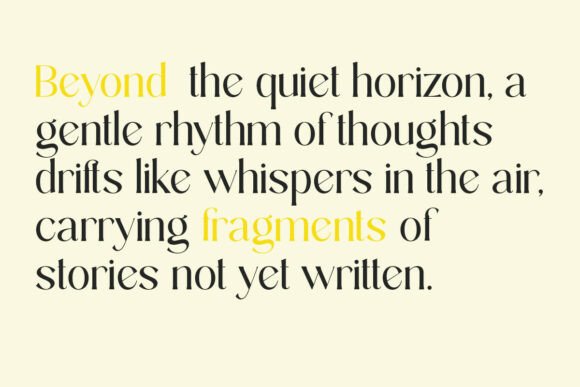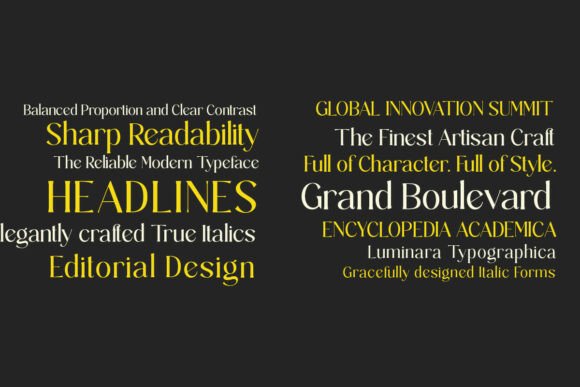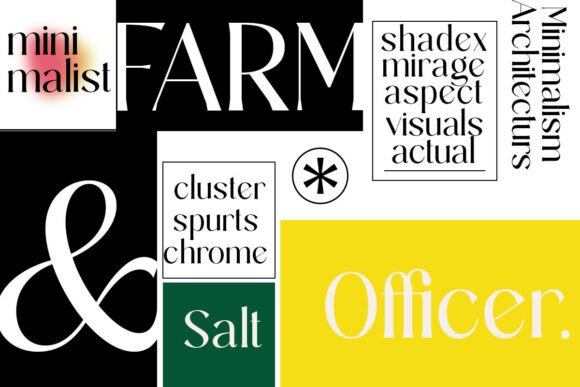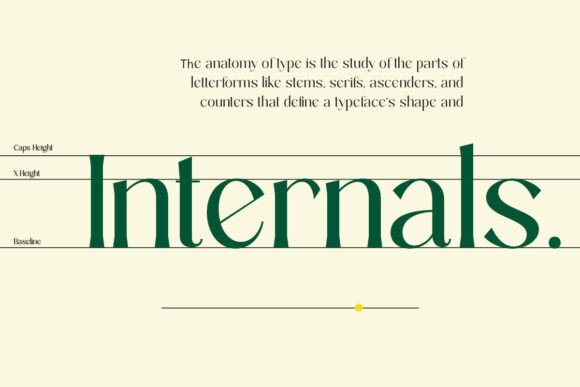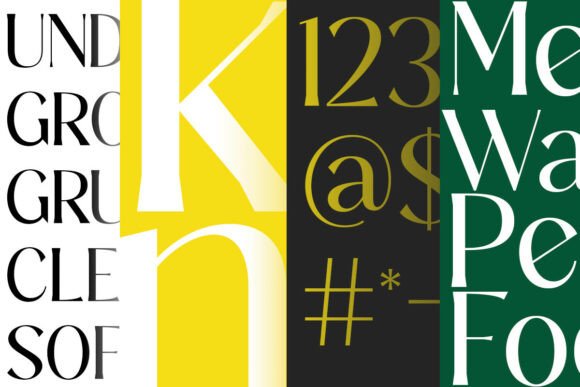
Introduction to Sarghet Regular Font
Have you ever found yourself stuck in a creative rut, struggling to find the perfect font to elevate your design project? It’s a common problem many designers face, but what if you stumbled upon a font that effortlessly adds a touch of sophistication and elegance to your work? That’s exactly what the Sarghet Regular Font offers – a game-changing design resource that’s sure to take your creative projects to the next level.
With its unique blend of smooth curves and sharp edges, Sarghet Regular Font exudes a luxurious and artistic feel that’s perfect for high-quality visual projects. Whether you’re working on branding, editorial, or premium product packaging, this font is sure to make a lasting impression. And the best part? It’s available for free download, making it an invaluable asset for designers looking to elevate their work without breaking the bank.
As a design resource, Sarghet Regular Font offers unparalleled flexibility and versatility, allowing you to create a wide range of visual effects with ease. From transparent backgrounds to bold typography, this font is the perfect companion for any creative project. So why settle for an ordinary font when you can have an extraordinary one? Dive into the world of Sarghet Regular Font and discover a whole new level of design possibilities.
Key Features of Sarghet Regular Font
- High-quality, free font suitable for various creative projects, including graphic design and digital art.
- Transparent background, allowing for easy layering and customization in design applications.
- Features a clean, modern design with clear typography, ideal for use in digital and print media.
- Perfect for use in logos, headings, and body text, adding a touch of sophistication to any design project.
Honest Review: Sarghet Regular Font
I recently had the chance to work with the Sarghet Regular Font, and I must say it’s been a pleasant experience. The font is available for a free download, making it a valuable design resource for any creative project.
One of the things that works well with the Sarghet Regular Font is its high quality and versatility. It’s perfect for body text, headings, and even display fonts. The font has a clean and modern design that looks great on both digital and print materials.
Here are some of the features that I liked about the Sarghet Regular Font:
- High-quality design that’s perfect for body text, headings, and display fonts
- Free download makes it a valuable design resource for any creative project
- Works well with a transparent background, making it ideal for digital materials
- Only available in one weight (regular), which may limit its use in certain design projects
- No italics or bold weights available
- May not be suitable for projects that require a more dramatic or ornate font style
Overall, I’m impressed with the Sarghet Regular Font. Its high quality and versatility make it a great addition to any design arsenal. Just keep in mind its limitations, and you’ll be good to go! ⚠️✨
Tips for Getting the Most Out of Sarghet Regular Font
Experiment with different font sizes and styles to create visual interest in your designs. Use the Sarghet Regular Font in combination with other design elements to create a cohesive and high-quality design.
The Sarghet Regular Font is ideal for creating graphics, presentations, and documents for various creative projects, including branding, marketing materials, and educational resources.